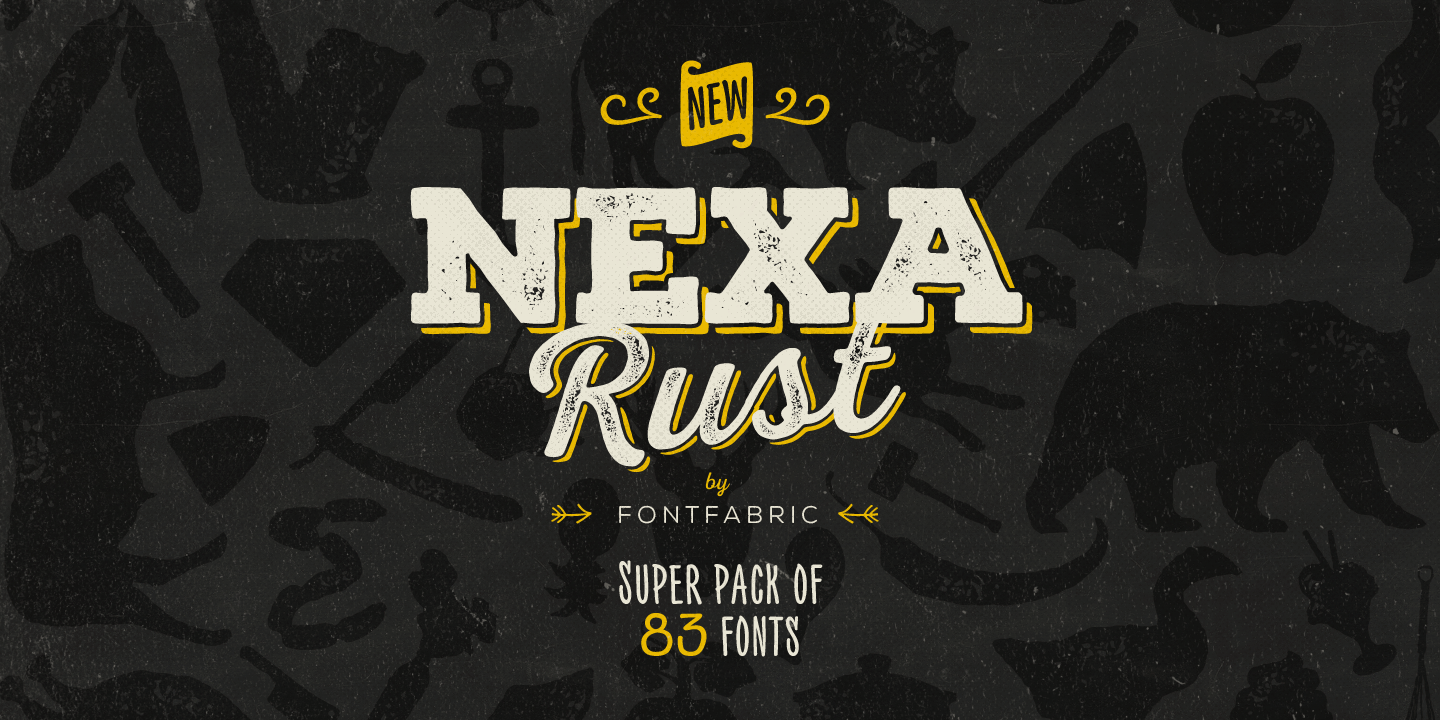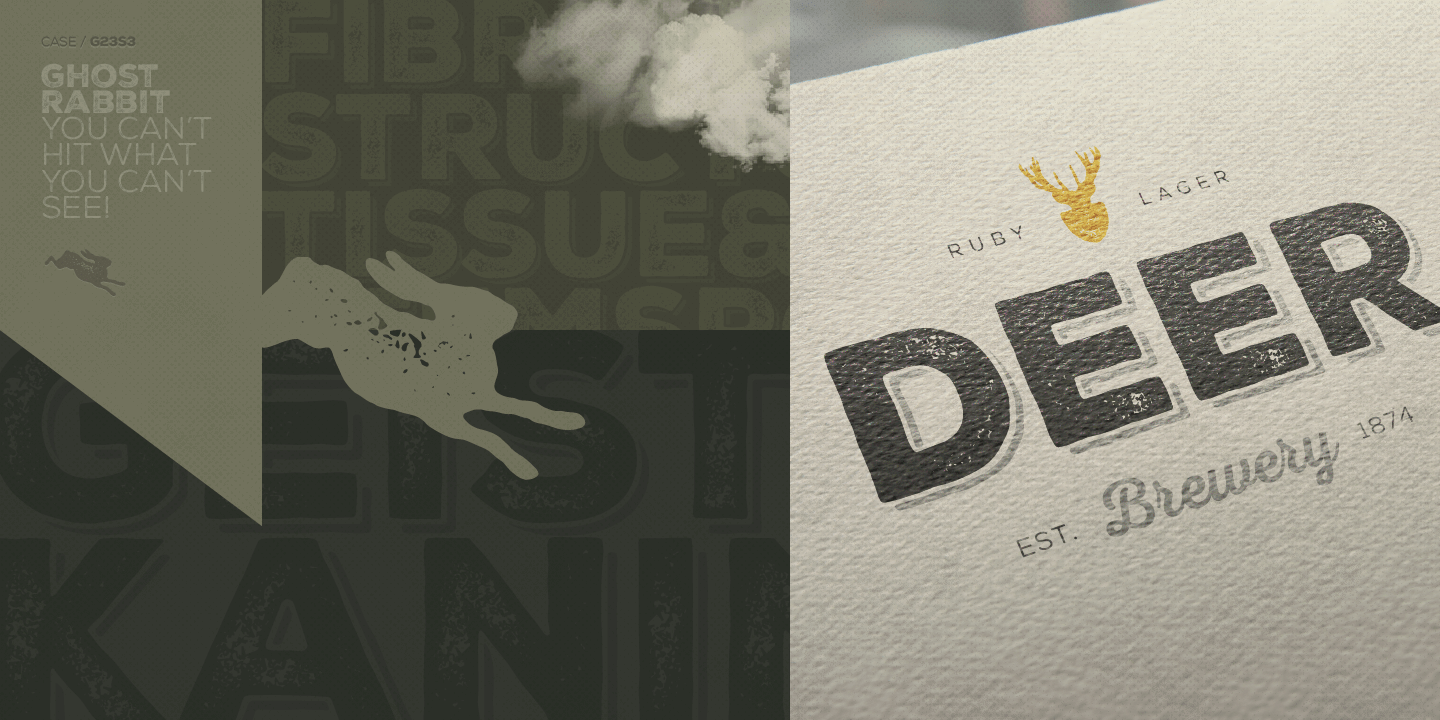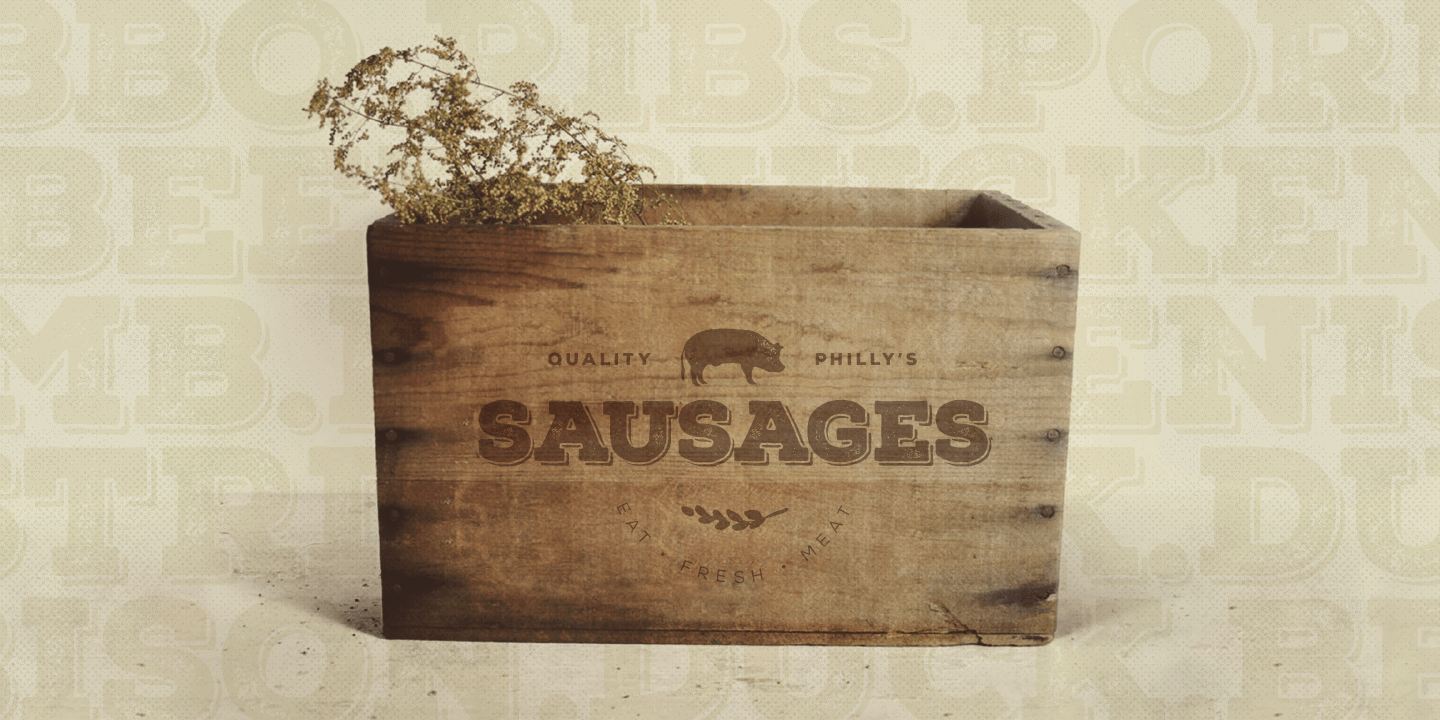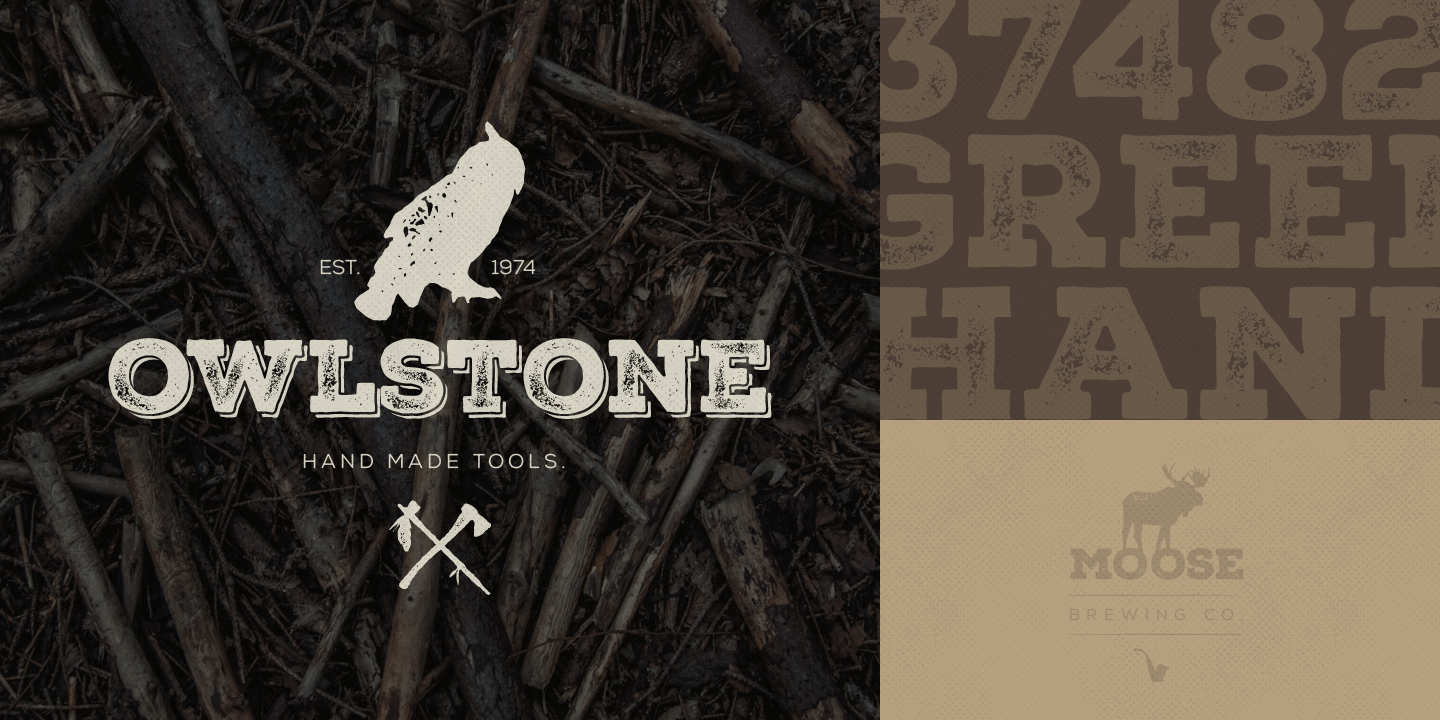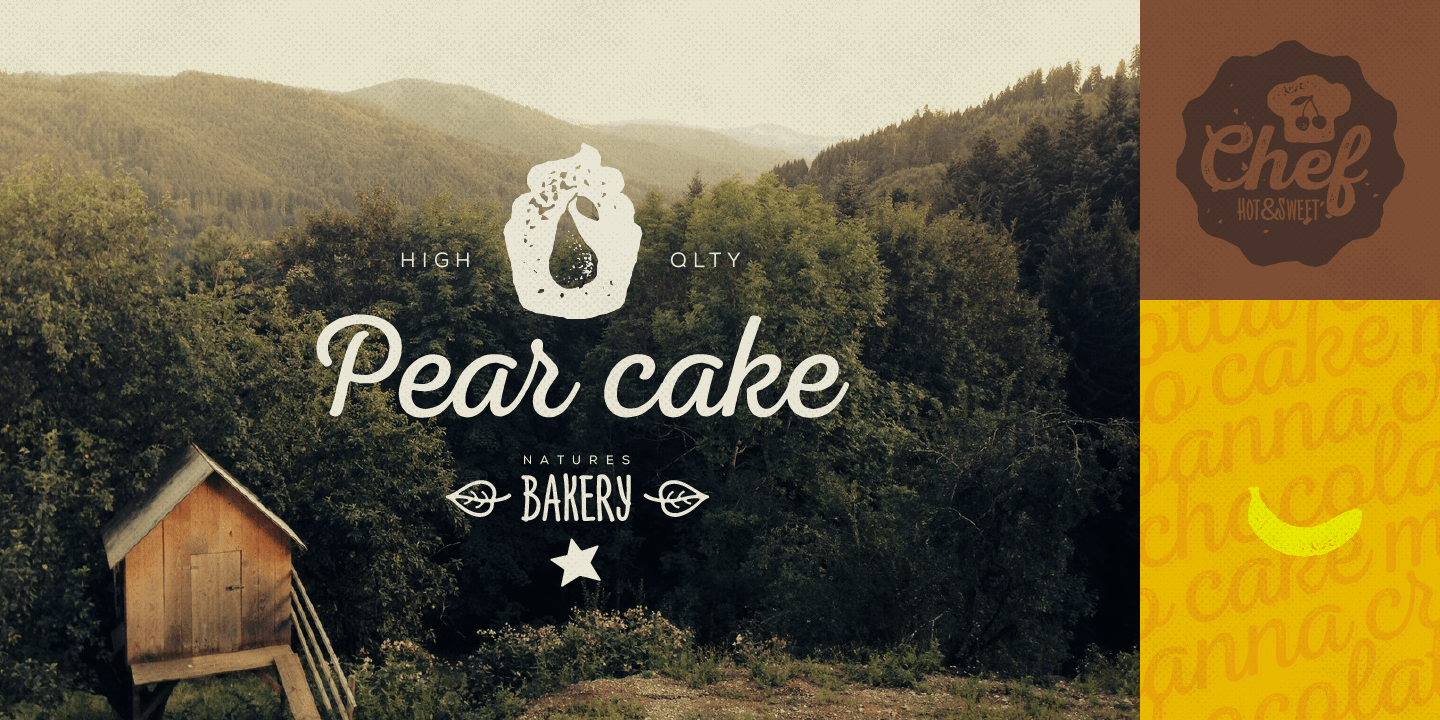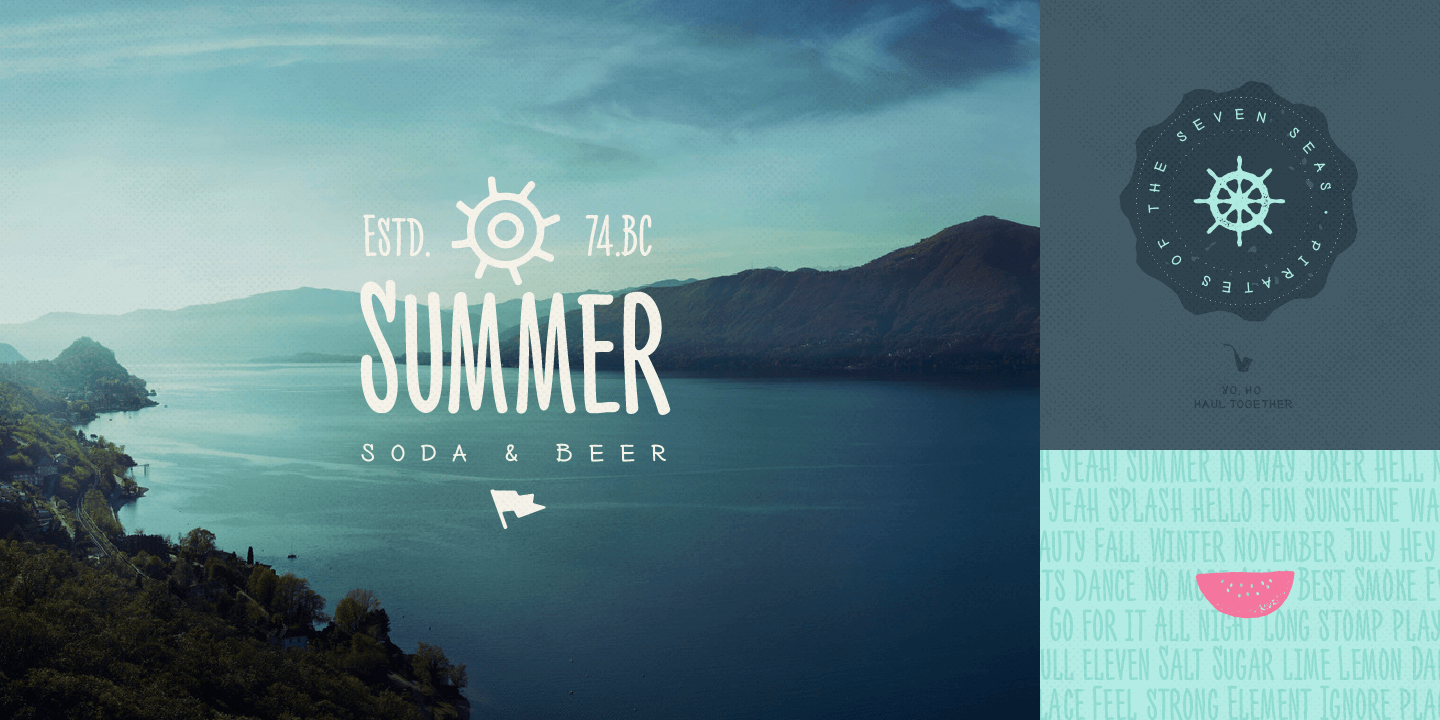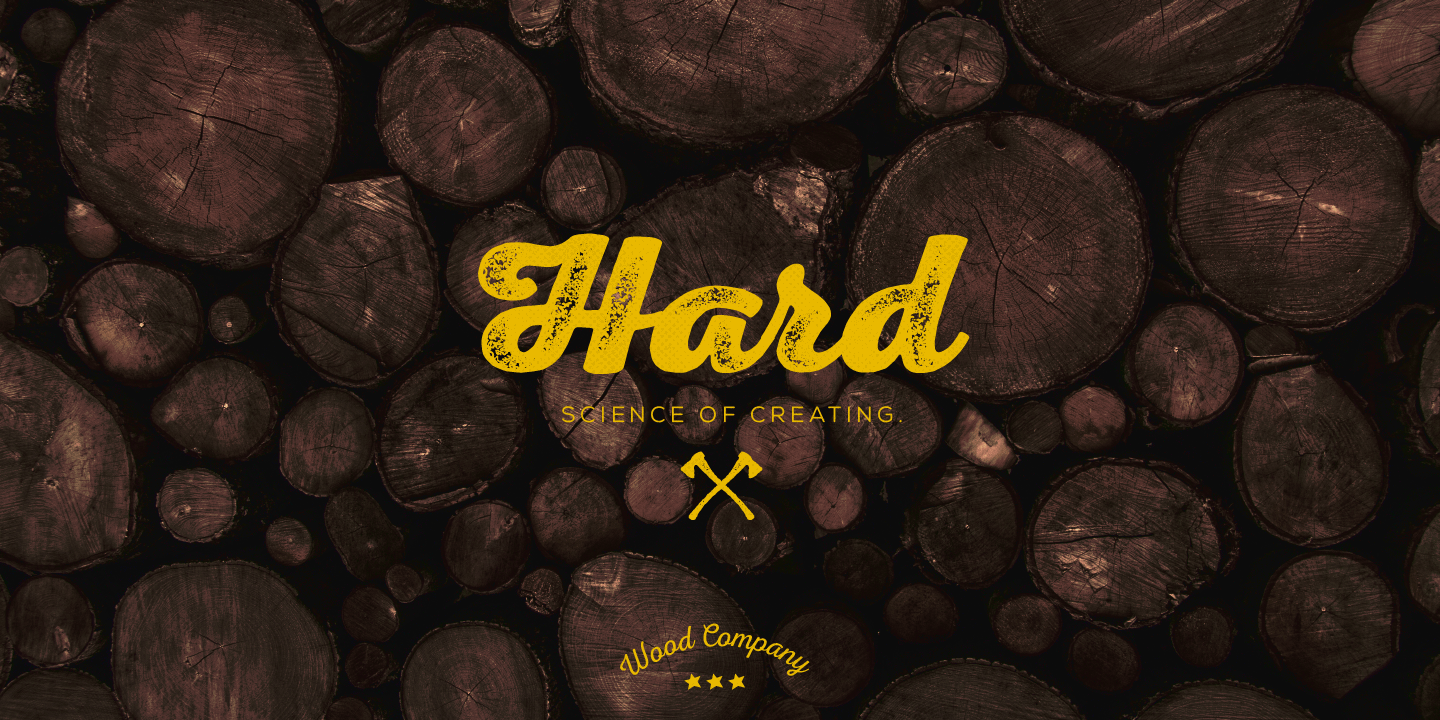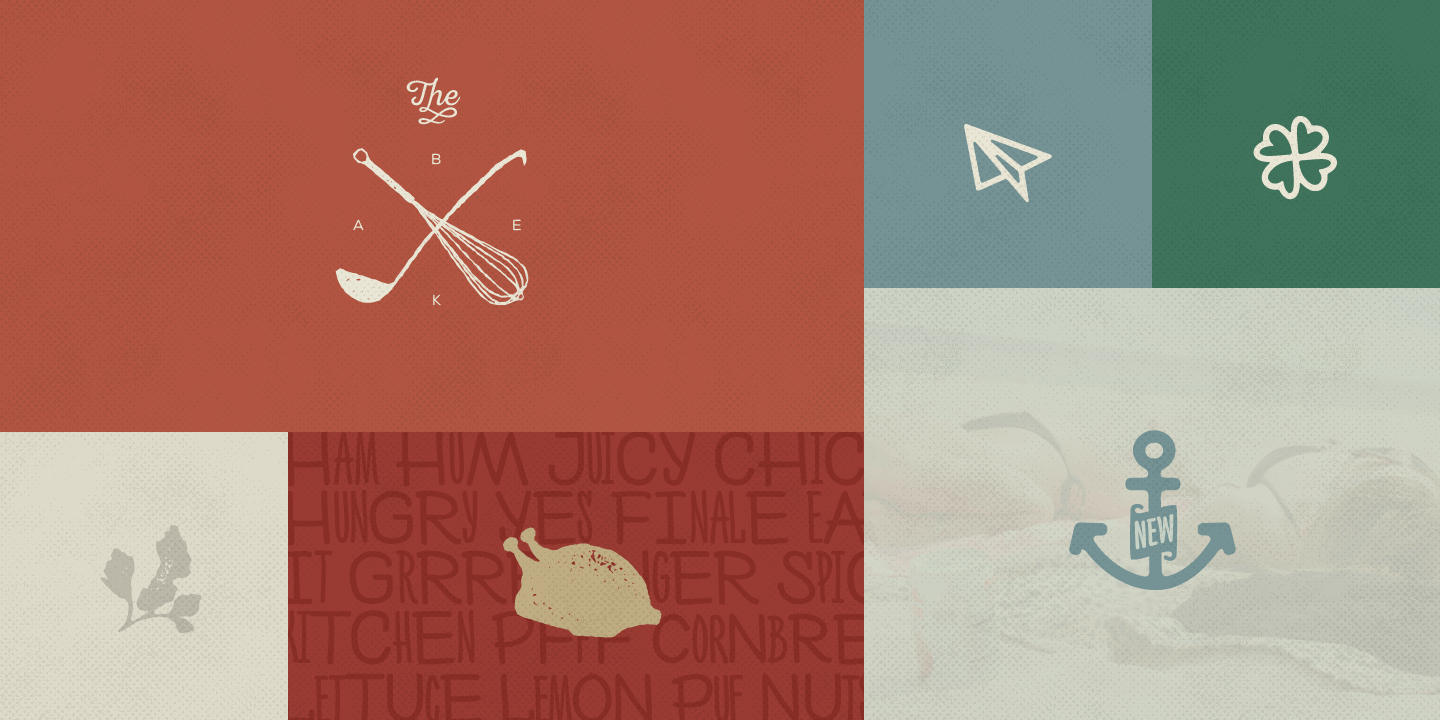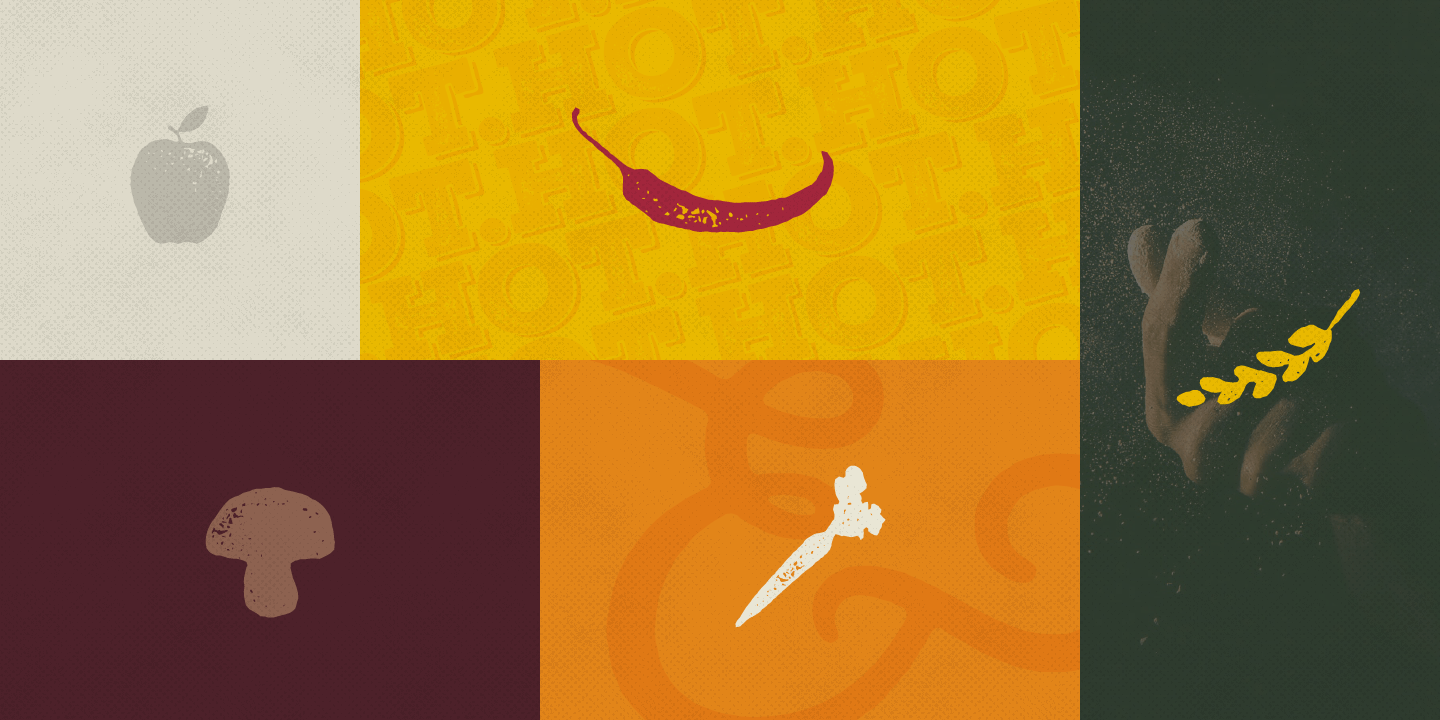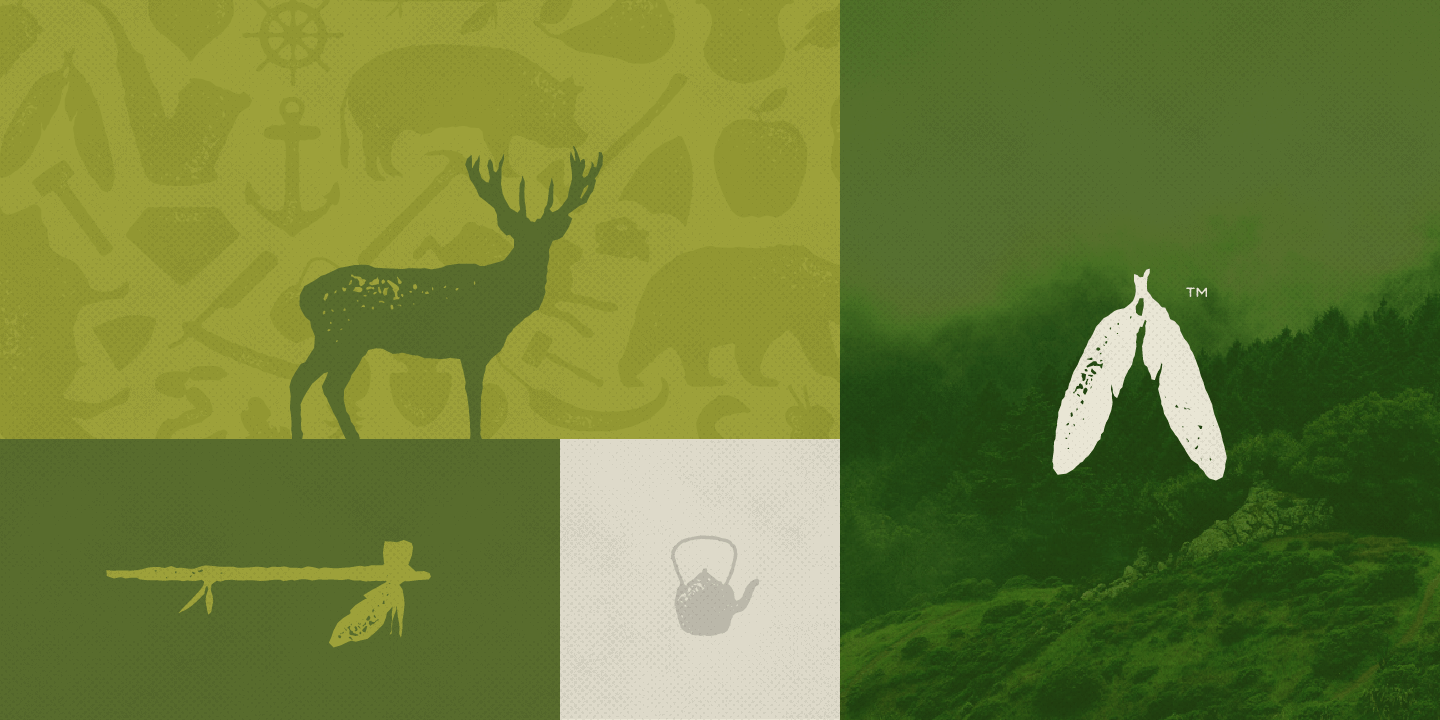
Nexa Rust
Nexa Rust from Fontfabric Type Foundry is a multifaceted font system consisting of font sub-families Sans, Slab, Script, Handmade and Extras.
Each of these sub-families contains a number of font weights which have a characteristic warm, rough look and display a few degrees of saturation.
Nexa Rust is a rough version of the already popular Nexa and Nexa Slab families with added new matching Nexa Script and Nexa Handmade fonts.
Along with all of this, you will also discover added groups of extras which could serve as a foundation or add that extra ?cherry on the cake? to each unique design.